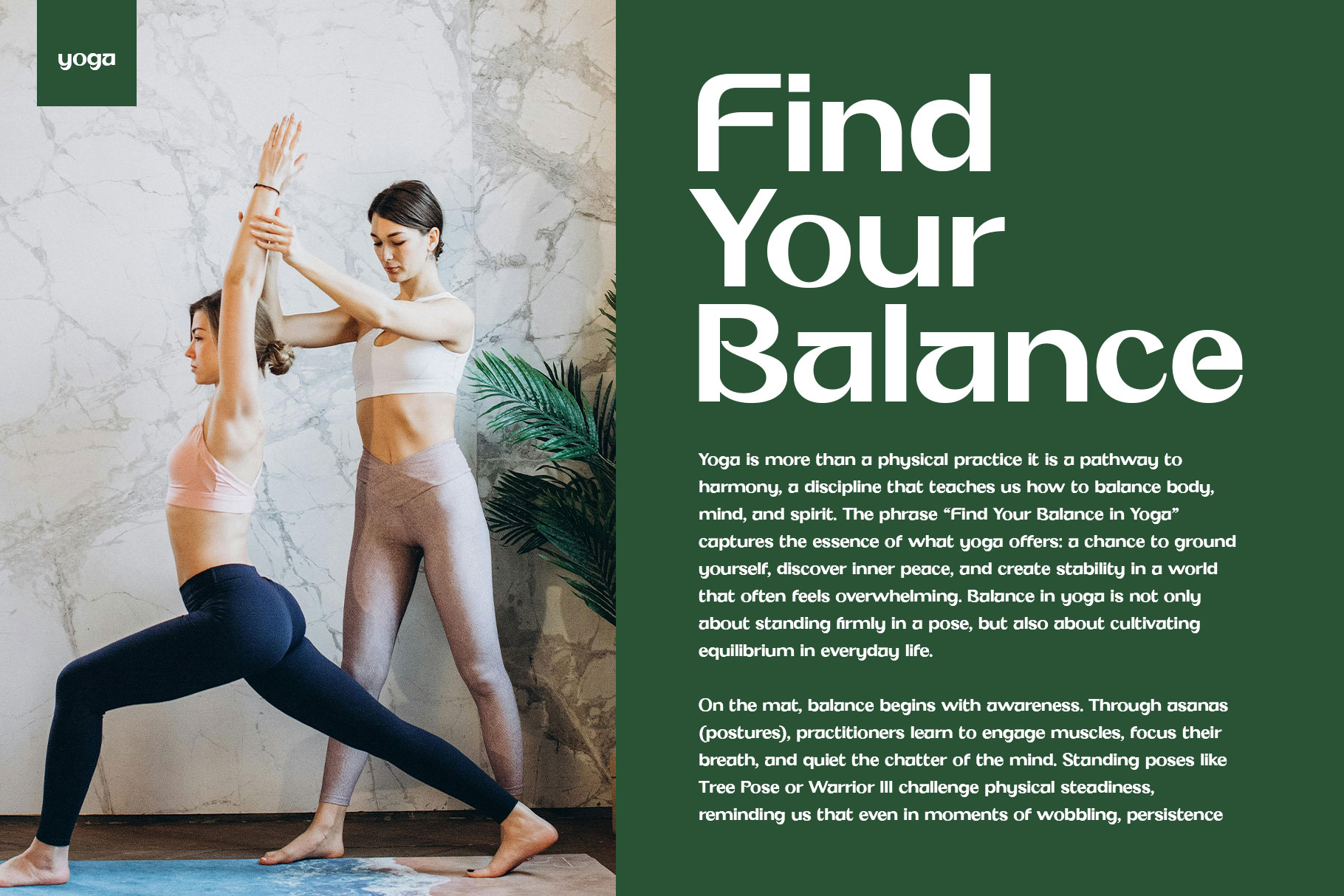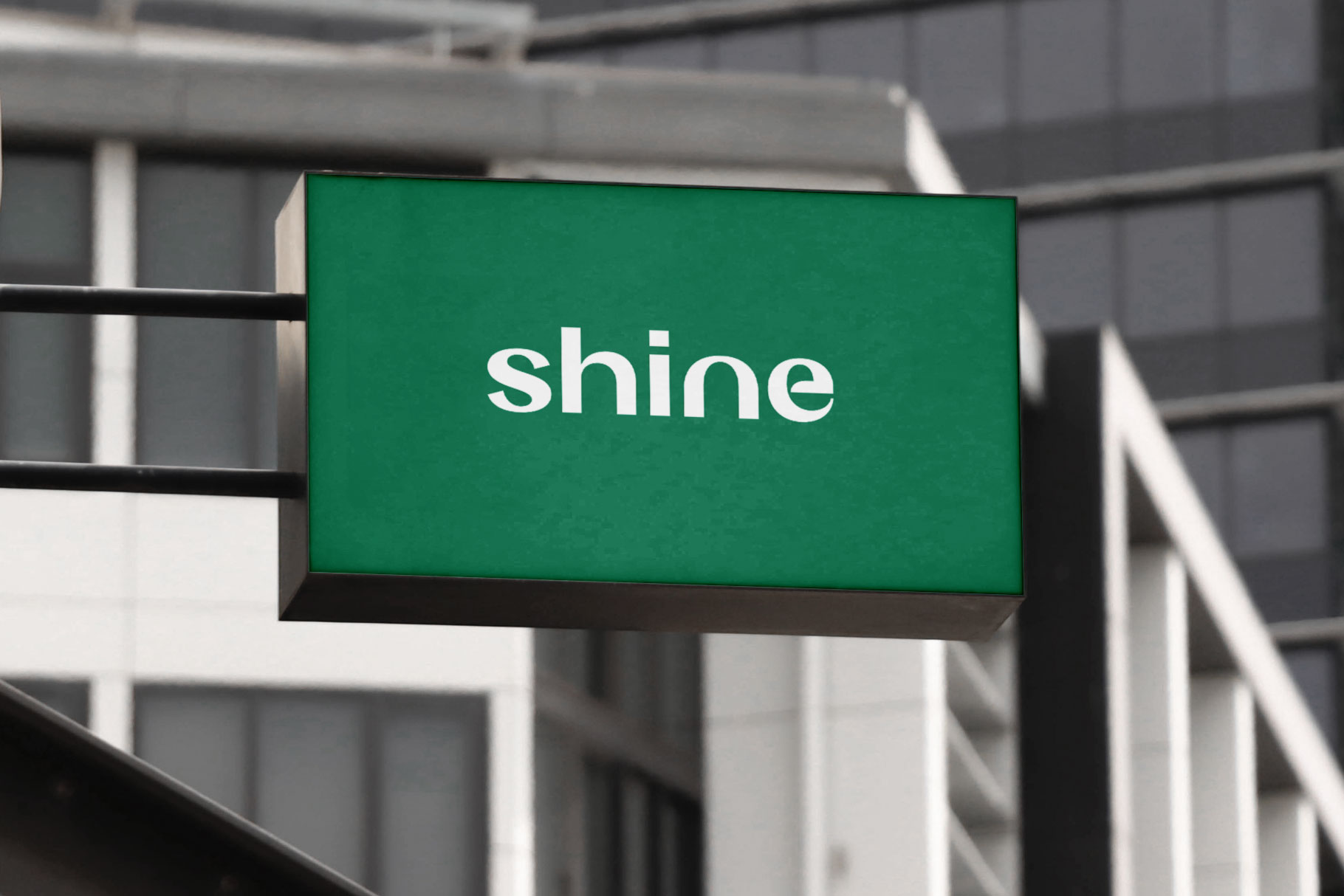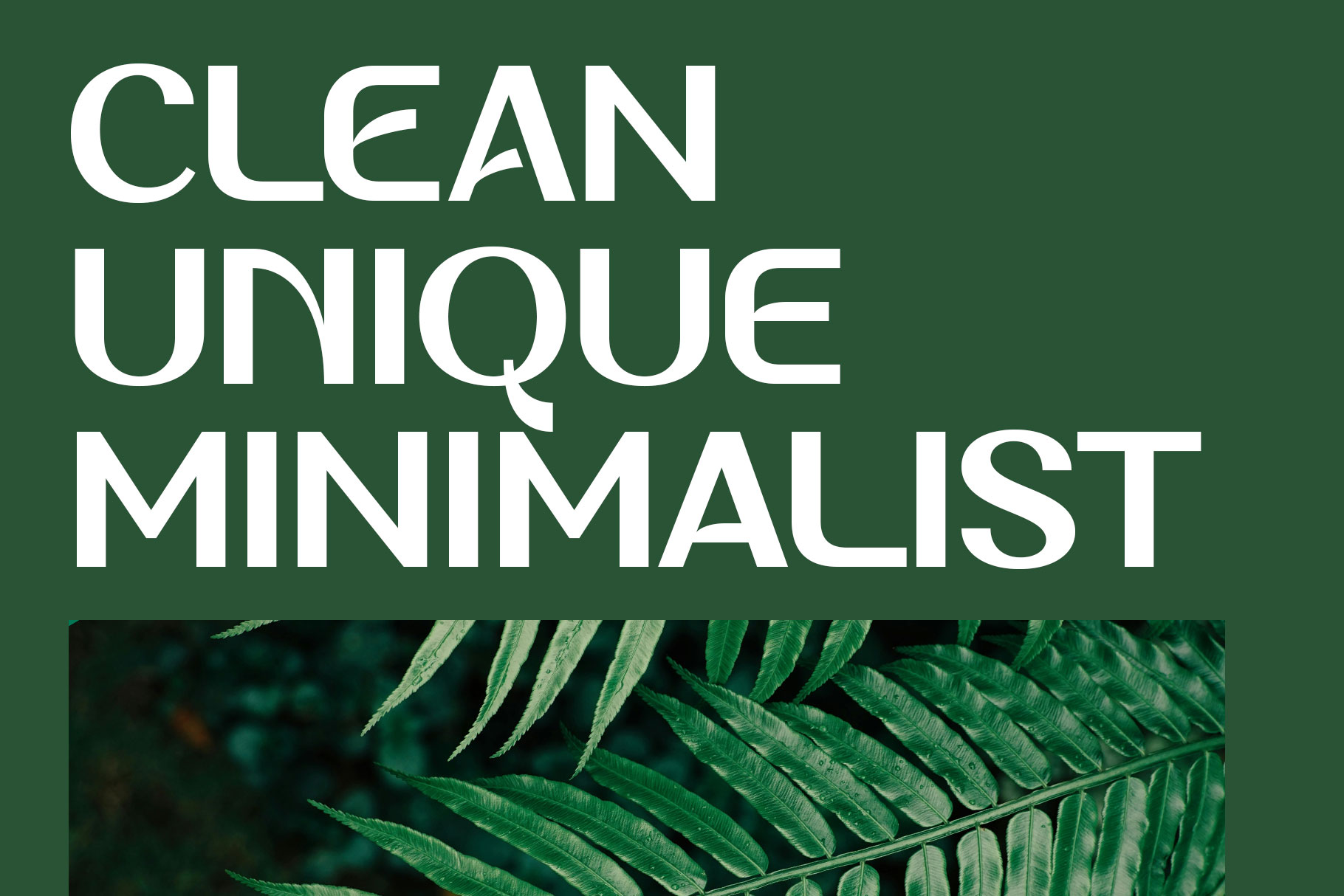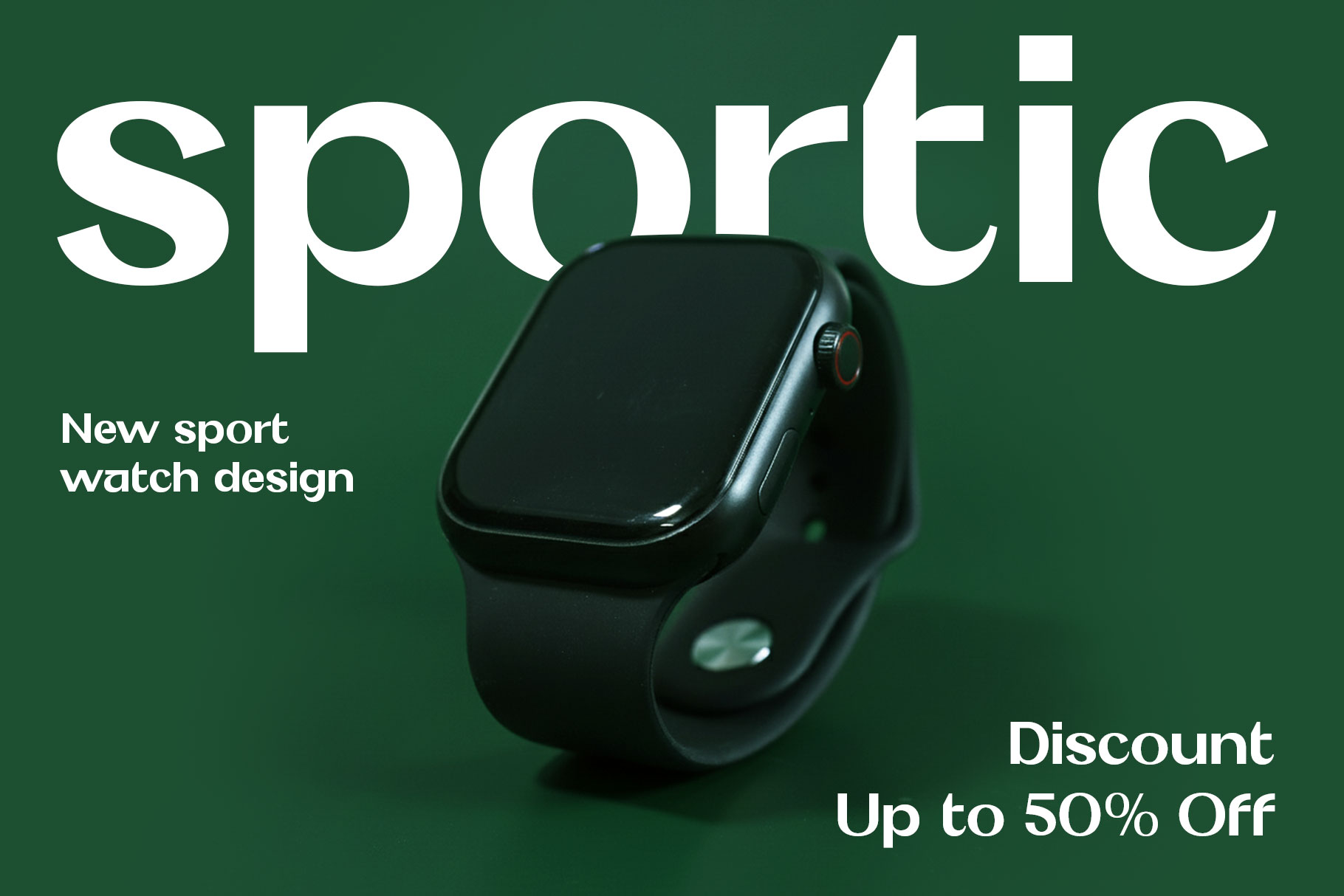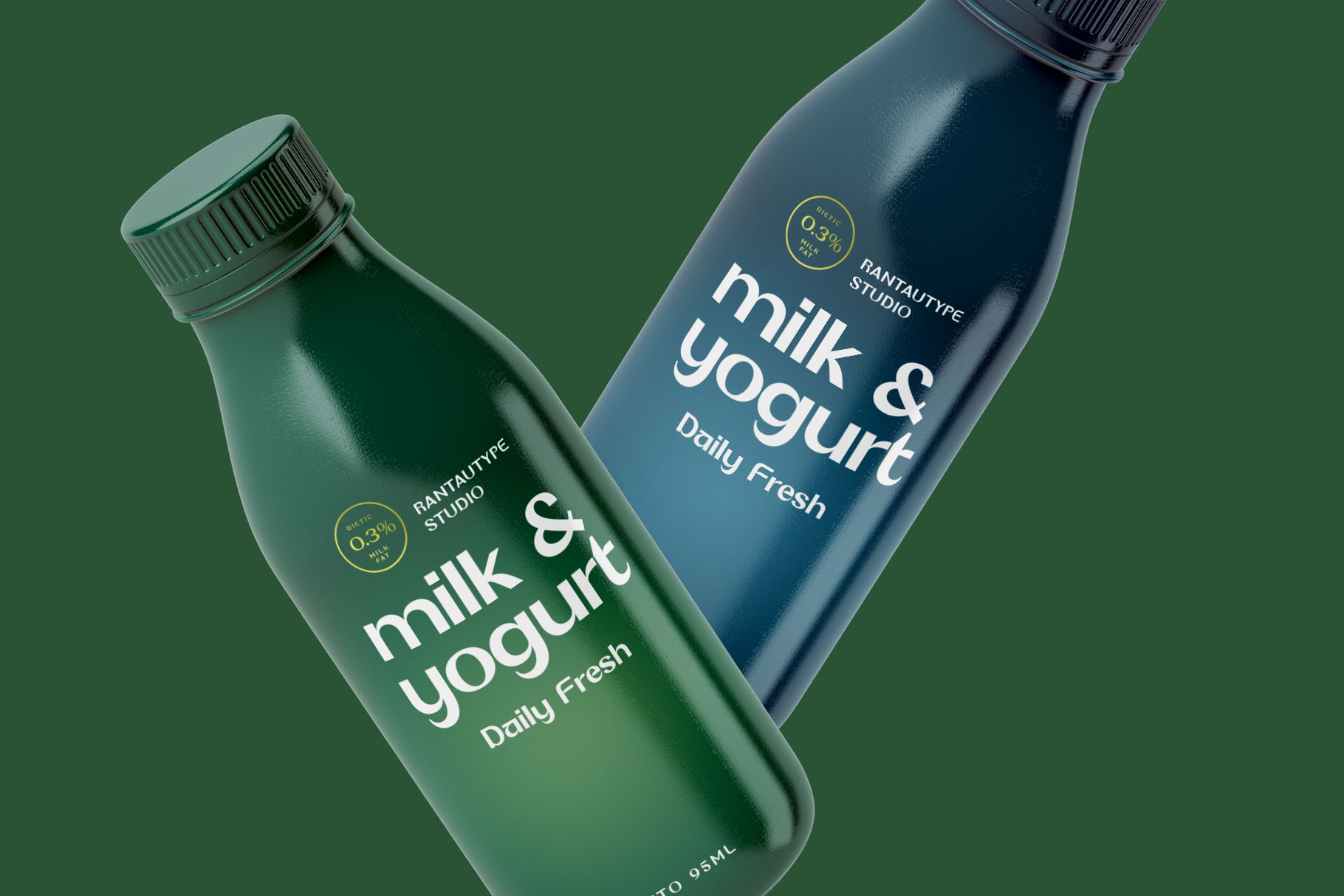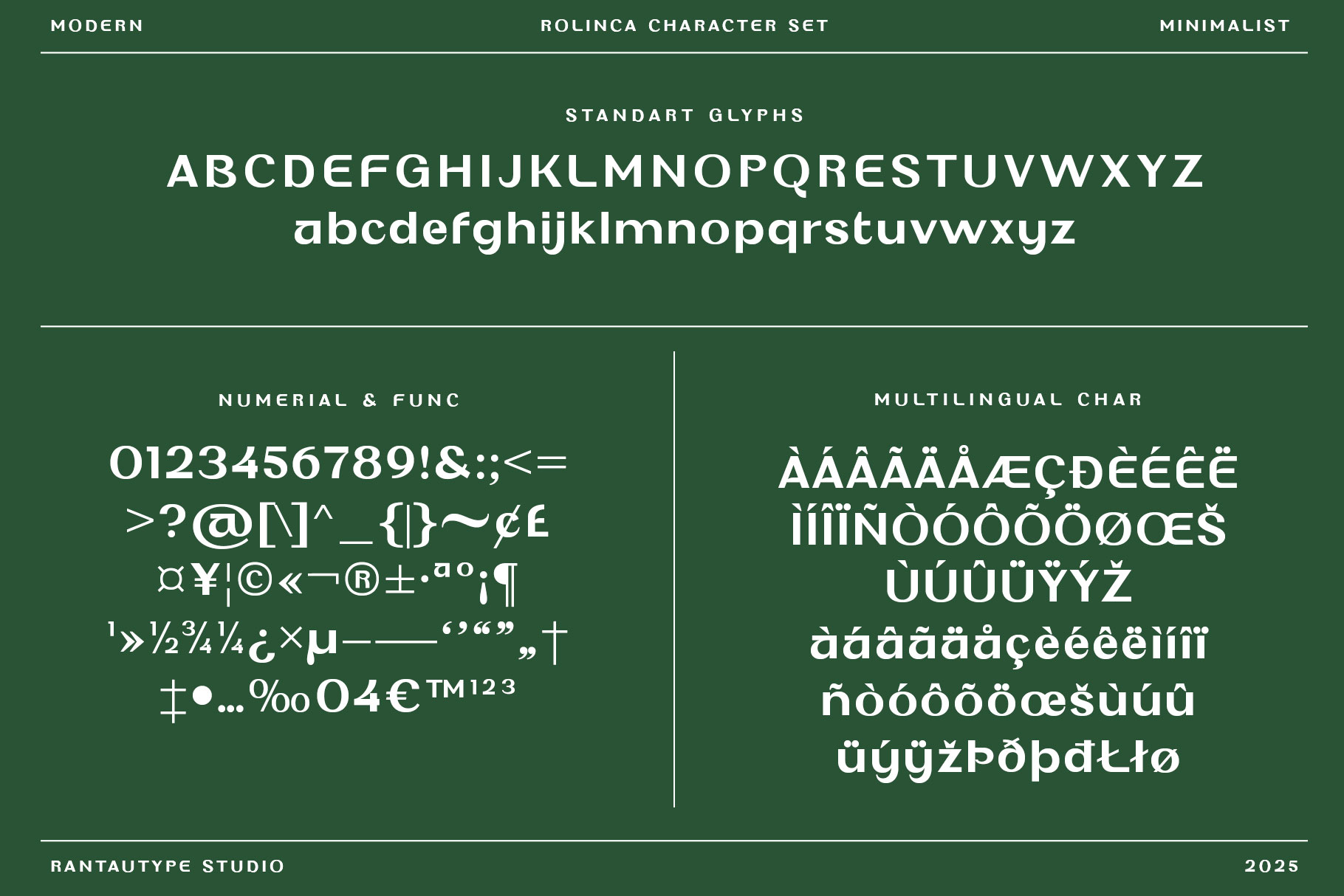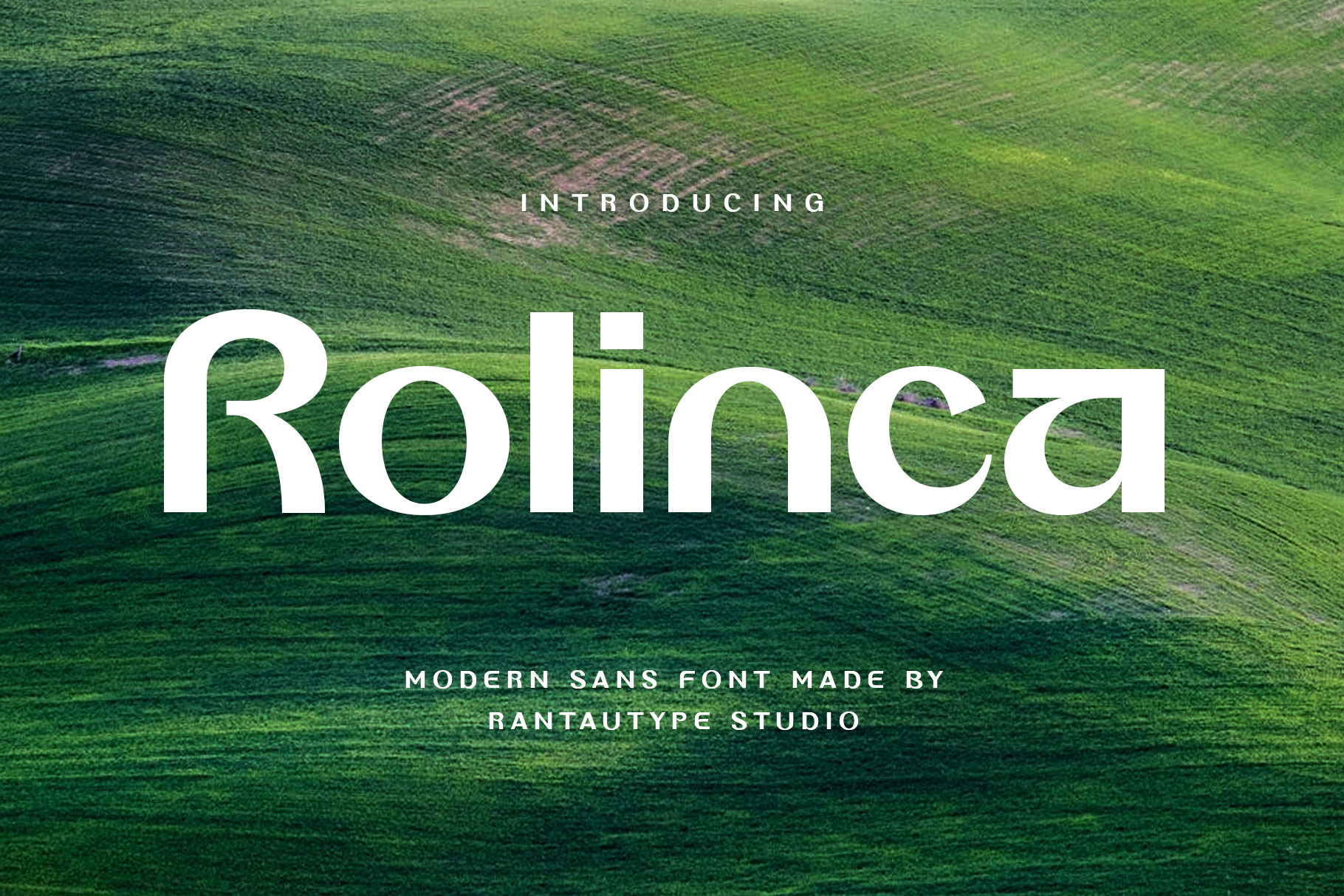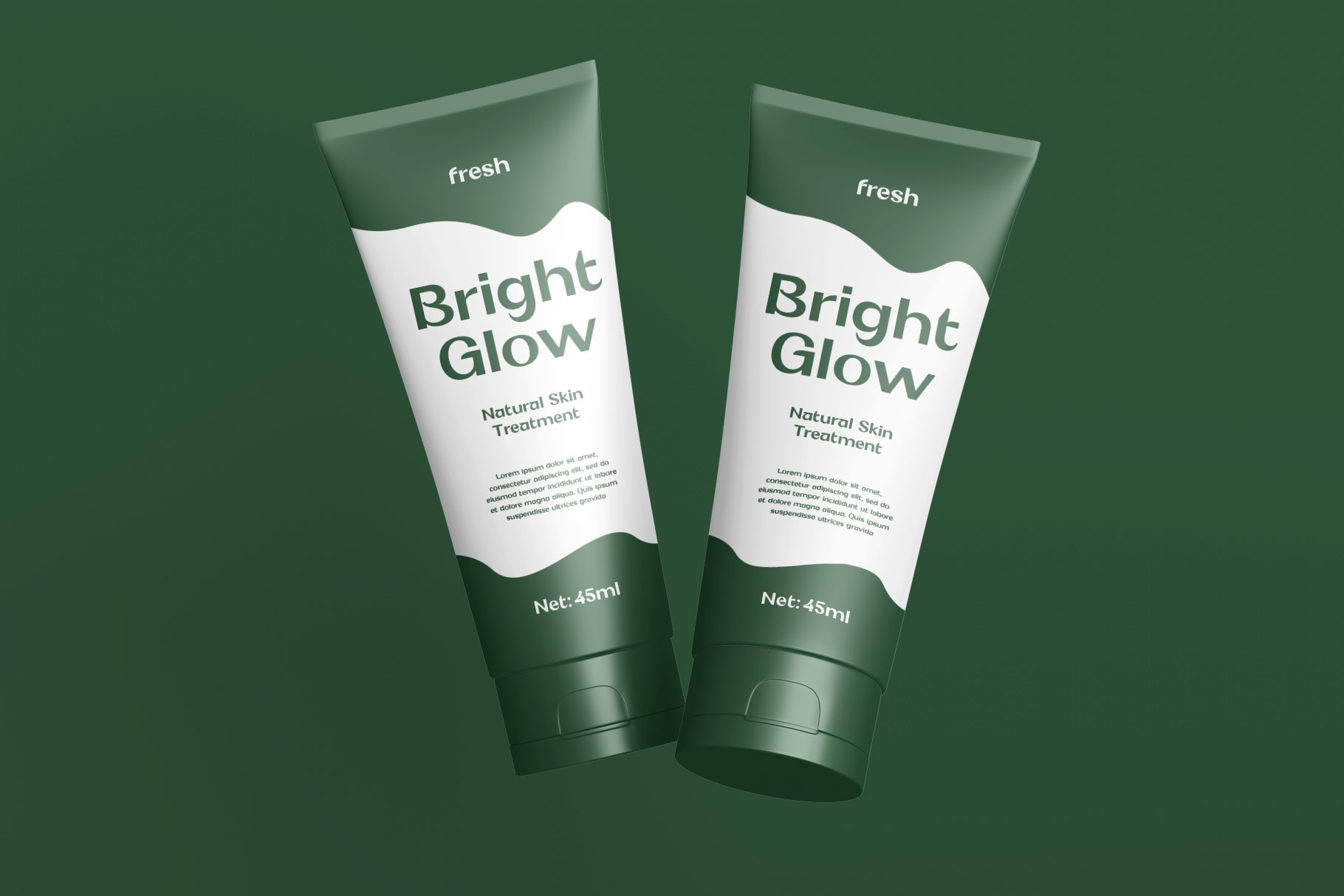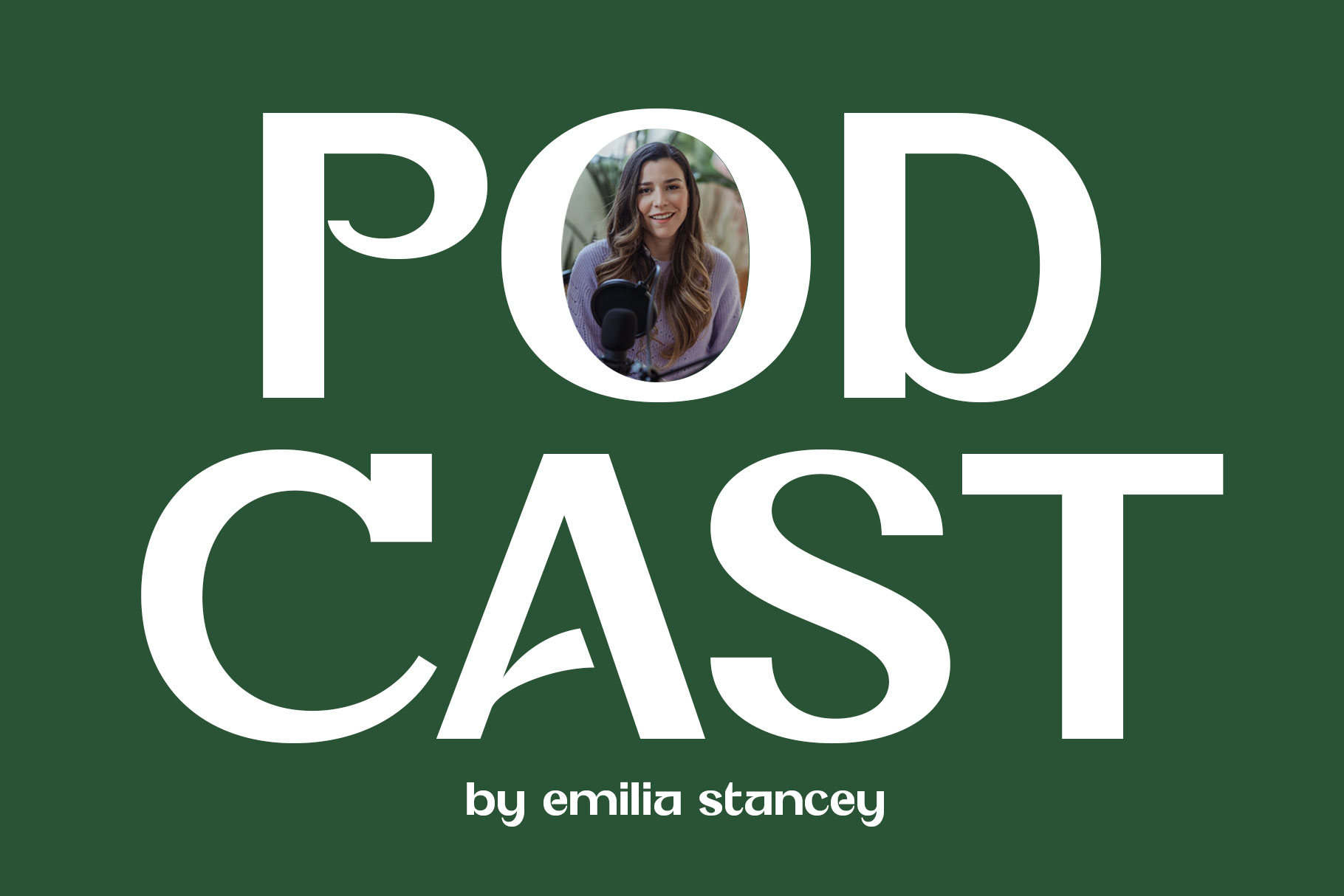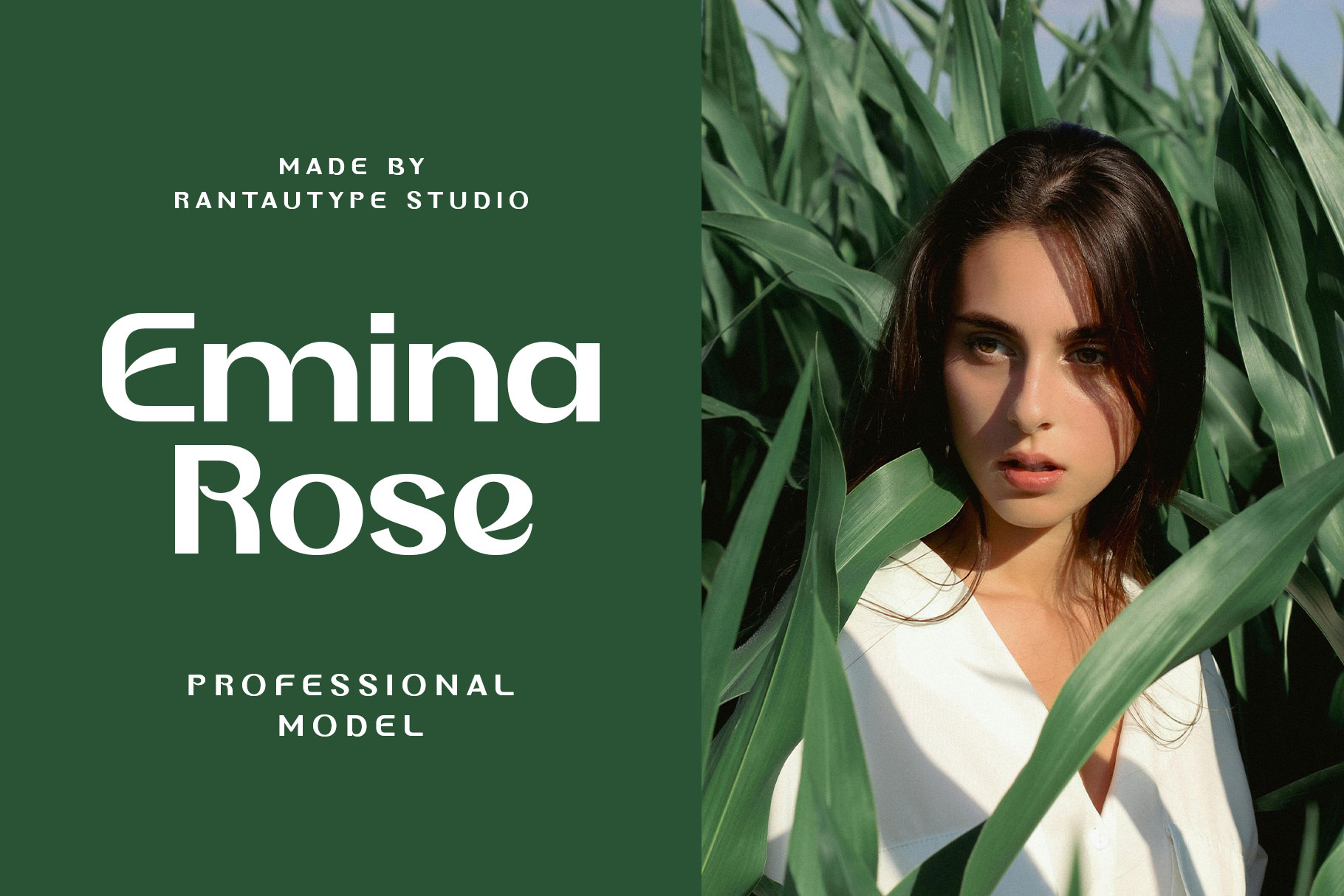
Rolinca is a modern sans font represents the essence of contemporary design, clean, minimal and highly versatile. Rolinca come with smooth lines, balanced proportions, and consistent strokes, these fonts embody clarity and sophistication, making them ideal for a wide range of creative and professional applications. Rolinca bring strength and ability to communicate without distraction.. Their clean geometry and streamlined letterforms project confidence, innovation and efficiency.